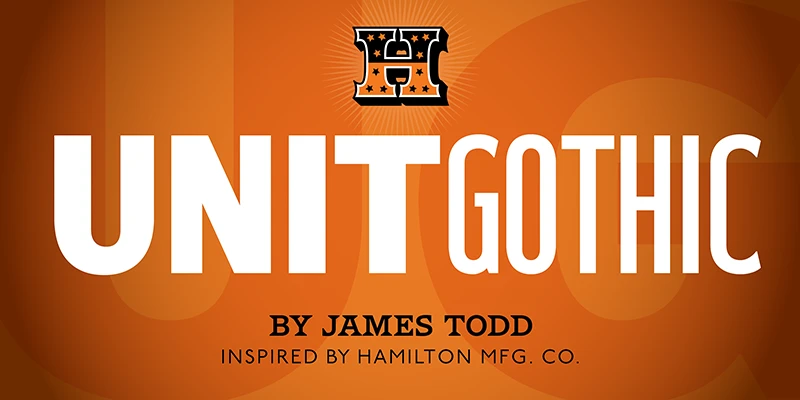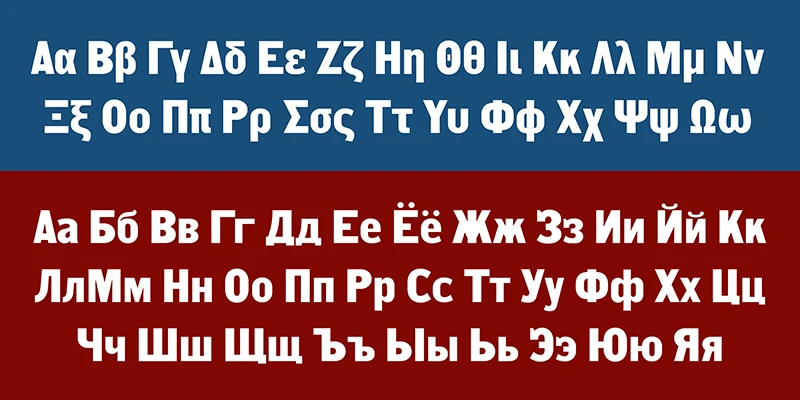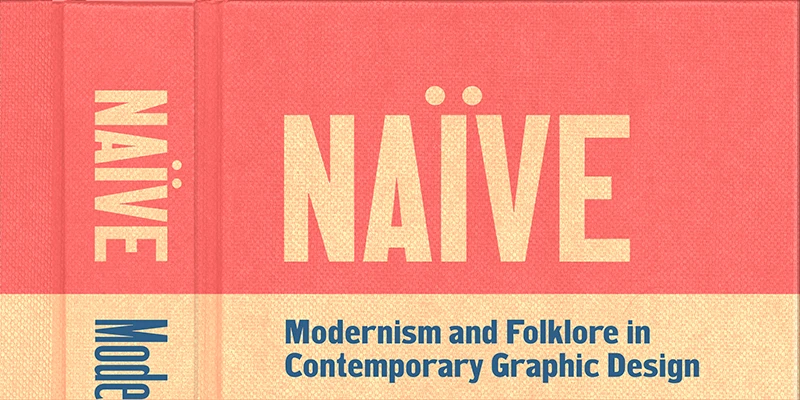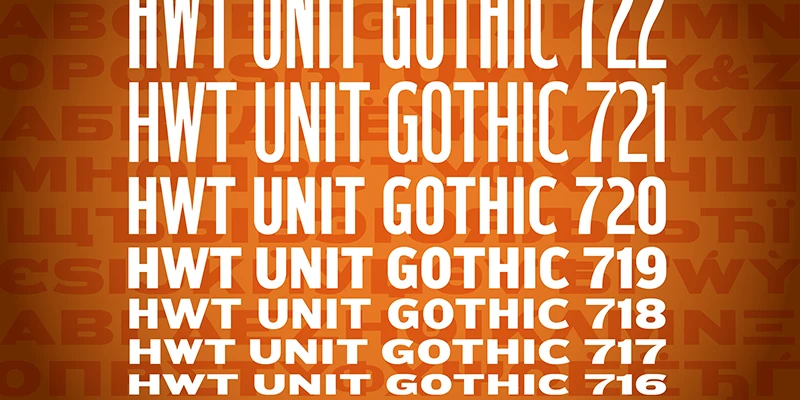
HWT Unit Gothic, originally published in 1907 by Hamilton Manufacturing Co., is, historically speaking, one of the first multi-height typefaces with seven fonts ranging from sturdy and small to thin and tall. This revolutionary design allowed for various lengths of harmonious text and headline compositions, pre-dating Adrian Frutiger’s system by fifty years. James Todd’s digital revival includes alternate characters, Greek and Cyrillic sets, and punctuation, totaling 600 glyphs per font.
Designed by James Todd